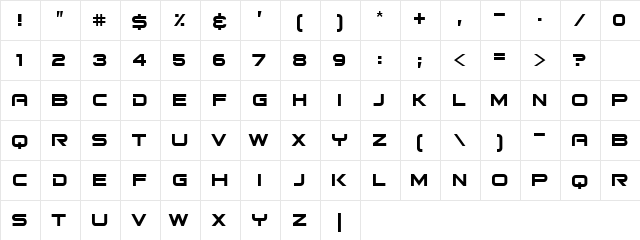
Bitsumishi Regular
Design Context for Bitsumishi Typeface
Bitsumishi is a composed and adaptable typeface that performs quietly and consistently across a wide range of design contexts.